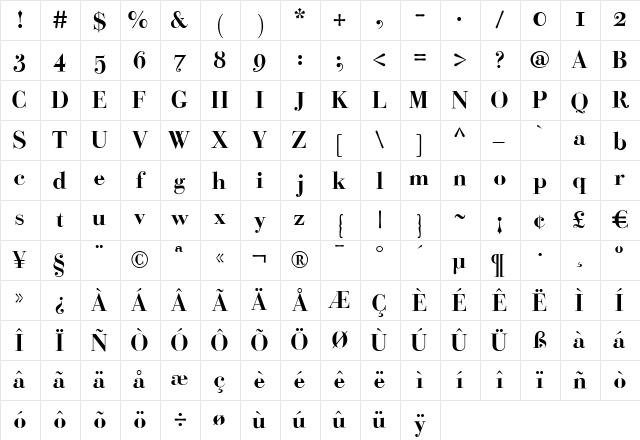
Bodoni Classic wears its vintage influences proudly, with letterforms that recall mid-century signage, classic packaging, and nostalgia-driven design. Its bold stroke weight gives it real presence on the page.
Font Pairing: Combine Bodoni Classic with a simple slab or neutral sans - period-accurate companions reinforce the vintage feel without competing for attention.
Pro Tip: Lean into Bodoni Classic's period character by pairing it with aged paper textures, muted colour palettes, and vintage illustration styles.
Who designed the Bodoni Classic Bold font?